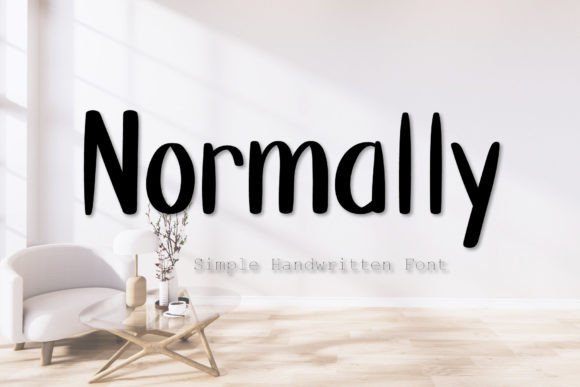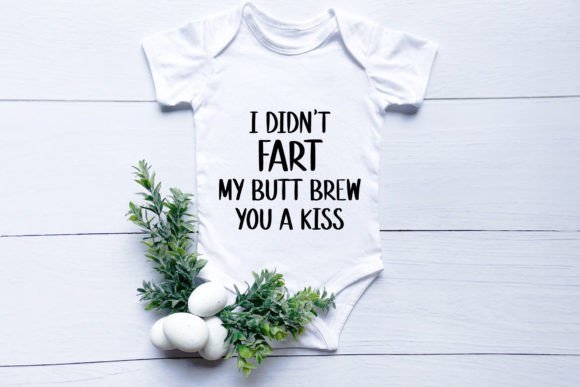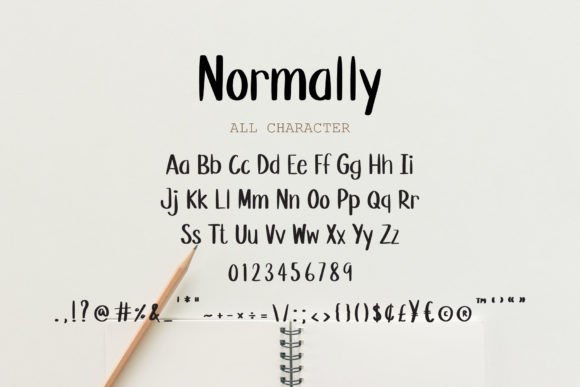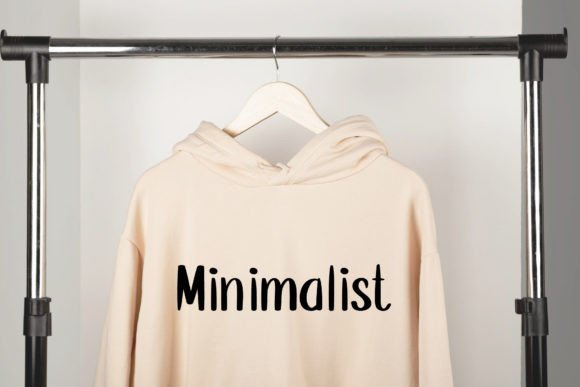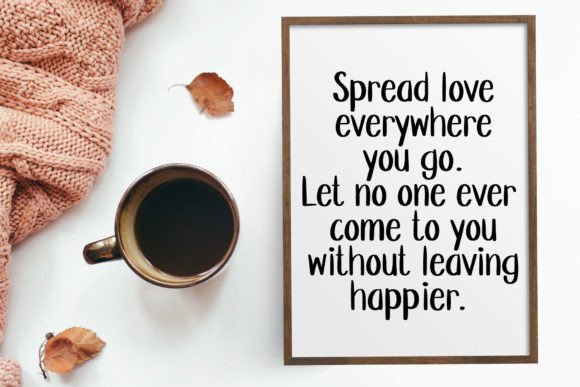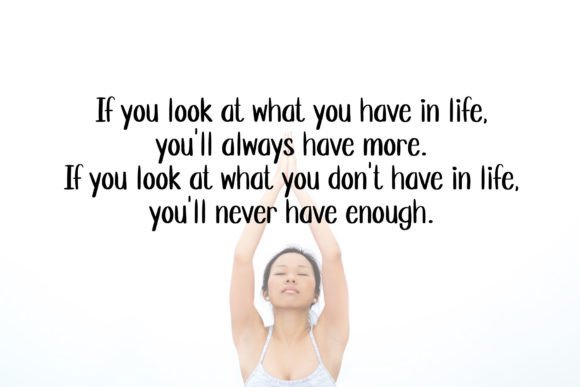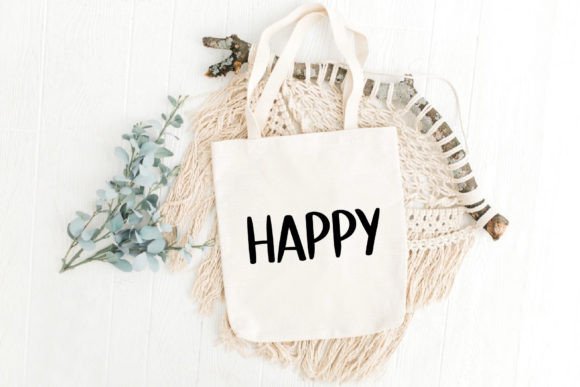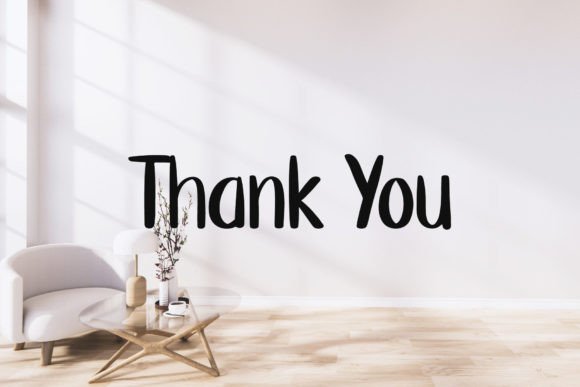
Normally Font
About Normally Font
**Normally Font: Playful and Quirky Handwritten Style**
The Normally font brings a playful and quirky handwritten style to your design projects, making it a versatile choice for a wide range of creative applications. Here’s how you can make the most of the Normally font in your design work:
1. **Logo Design:** Create eye-catching and memorable logos with a playful twist. The Normally font’s unique handwritten style can add character and charm to your brand identity.
2. **Branding:** Use Normally for branding materials, including business cards, stationery, and packaging, to infuse your brand with a fun and approachable personality.
3. **Posters and Flyers:** Design posters, flyers, and promotional materials for events, concerts, or product launches that demand a lively and whimsical aesthetic.
4. **DIY and Craft Projects:** Incorporate the Normally font into your DIY craft projects, whether it’s designing custom stickers, labels, or personalized gifts.
5. **Greeting Cards:** Create fun and quirky greeting cards for birthdays, holidays, or special occasions, adding a touch of playfulness to your heartfelt messages.
6. **Social Media Graphics:** Design engaging social media posts, memes, and shareable graphics that stand out with the Normally font’s unique handwritten look.
7. **Children’s Books:** Use the font for children’s book titles, covers, and illustrations to capture the attention of young readers with its playful style.
8. **Event Invitations:** Craft playful and colorful invitations for kids’ parties, baby showers, or other events where a cheerful design is desired.
9. **Craft Blogs:** If you run a craft or DIY blog, the Normally font can be used in blog headers, featured images, and other graphics to give your site a distinctive look.
10. **Packaging Labels:** Apply the font to product labels and packaging for artisanal or handmade goods, showcasing the playful and unique nature of your brand.
11. **Typography Art:** Create whimsical and colorful typography-based artwork with quotes, phrases, or slogans using the Normally font as the focal point.
12. **Educational Materials:** Design educational materials, worksheets, and resources for children or learners who respond well to a fun and approachable design.
13. **Cafes and Restaurants:** Use the Normally font in menus, chalkboard signs, or branding materials for cafes and restaurants with a playful or quirky theme.
14. **Party Decorations:** Customize banners, party favors, and decorations for themed parties and celebrations, infusing them with a sense of fun and whimsy.
15. **Product Packaging:** Apply the font to packaging for children’s products, toys, or playful accessories to make them more appealing to a younger audience.
16. **Web Design:** Incorporate the Normally font into web design elements, such as headings, buttons, and banners, to create a unique and friendly online presence.
Normally’s playful and quirky handwritten style adds a touch of creativity and fun to your design projects, making it an excellent choice for projects that aim to stand out with a unique and approachable visual identity. Whether you’re working on branding, marketing materials, or creative DIY endeavors, the Normally font can help you achieve a distinctive and playful look.